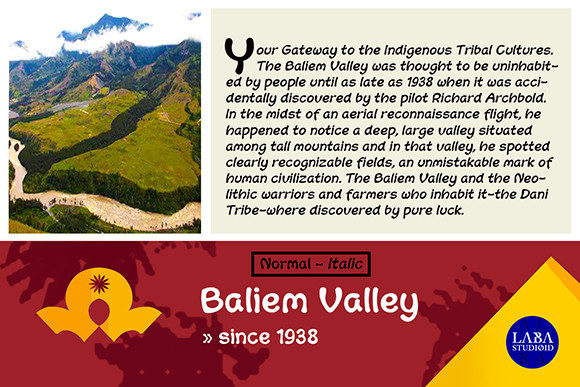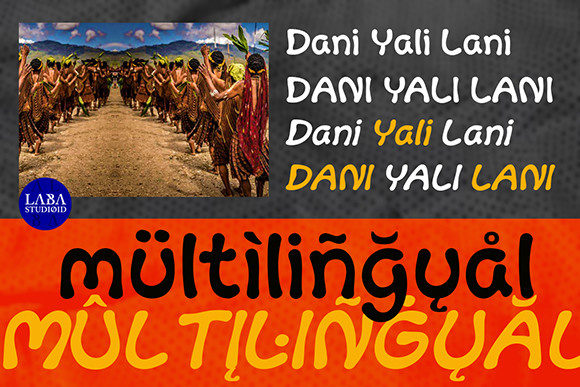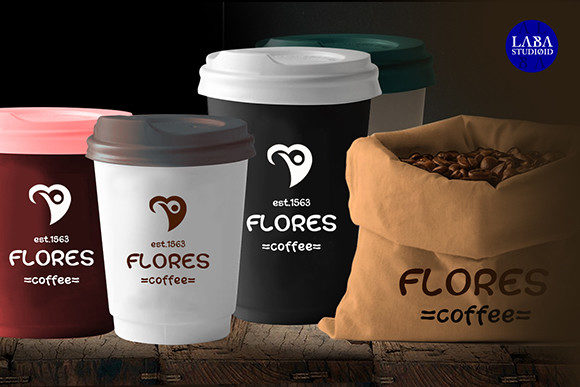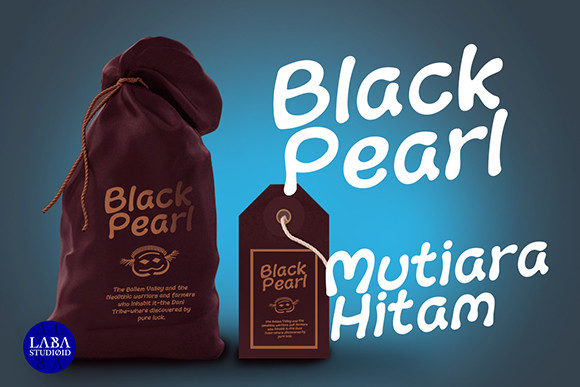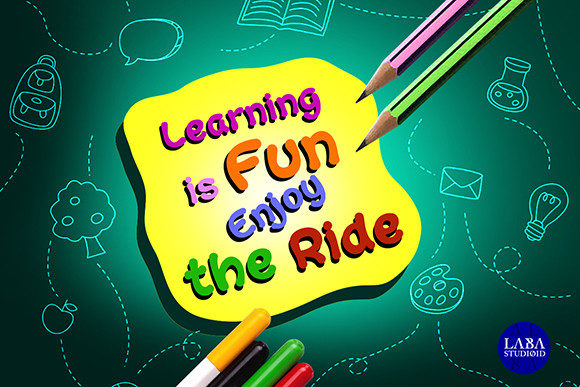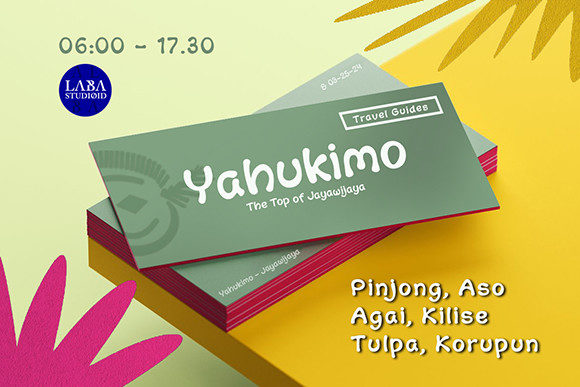
The Perfect Font for Unconventional Creations
Have you ever been stuck on a project, staring at a blank page, and suddenly a spark of creativity hits you? The idea flows, and your imagination runs wild. This is the moment when the right font can make all the difference. For designers, finding that perfect font can be the key to unlocking their full creative potential.
Enter the Baliem Font, a cool and quirky display font that’s sure to add a unique touch to any project. Its purpose is to enhance and elevate your creations, making it a valuable asset to any font library. Whether you’re working on a bold campaign or a whimsical illustration, the Baliem Font has the potential to bring your vision to life.
As a designer, you know how important it is to have a versatile font that can adapt to any style or theme. The Baliem Font is that versatile font, offering a unique blend of modernity and quirkiness that’s sure to make your designs stand out.
Baliem Font Key Features
- Font Family: Baliem Font is a sans-serif typeface designed for use in various digital applications.
- Character Count: The font family includes over 200 glyphs, covering a wide range of languages, including Latin, Cyrillic, and Greek scripts.
- Font Size and Resolution: Baliem Font is designed to be used at font sizes ranging from 8 to 72 points, with optimal readability at 12-point size and a resolution of 300 DPI.
- Unique Characteristics: The font features a unique blend of modern and traditional elements, with a focus on legibility and readability in both on-screen and print applications.
Baliem Font Review
I recently had the chance to work with the Baliem Font, and I have to say, it’s a unique and interesting choice. Here are my thoughts.
- The Baliem Font has a distinct, tribal aesthetic that’s perfect for designs that need a sense of culture and tradition.
- The font is highly customizable, with a wide range of options for adjusting the weight, style, and spacing.
- The Baliem Font is a great choice for designs that need a touch of elegance and sophistication, without looking too formal.
- The Baliem Font can be difficult to read in smaller sizes, which may limit its use in certain contexts.
- The font’s unique style may not be suitable for all types of designs, and may not be easily paired with other fonts.
Overall, I think the Baliem Font is a great choice for designers who want to add a unique touch to their work. While it has some limitations, it’s a versatile and highly customizable font that can be used in a variety of contexts.
The Baliem font is ideal for creating a unique and exotic design style. Use it for:
- Travel and adventure branding.
- Cultural and ethnic-themed designs.
- Exotic and tropical-themed packaging and labels.